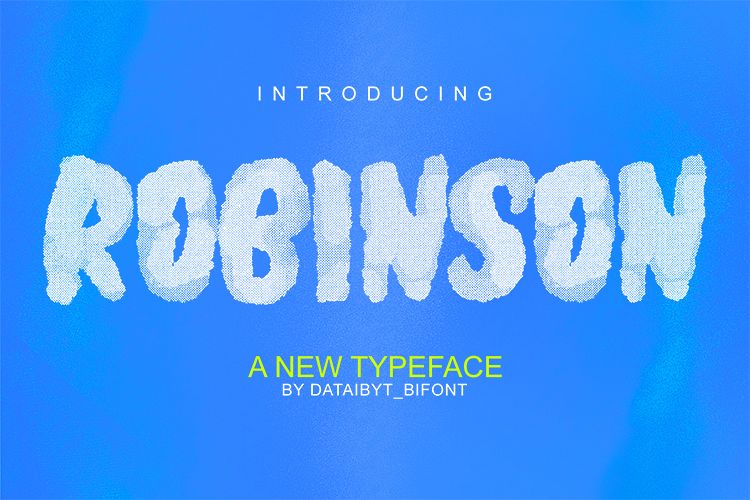
ROBINSON FONT
Robinson's font is perfect for branding, logos, magazines, films, websites, headlines, titles, descriptions, games, applications, posters, t-shirts and more.